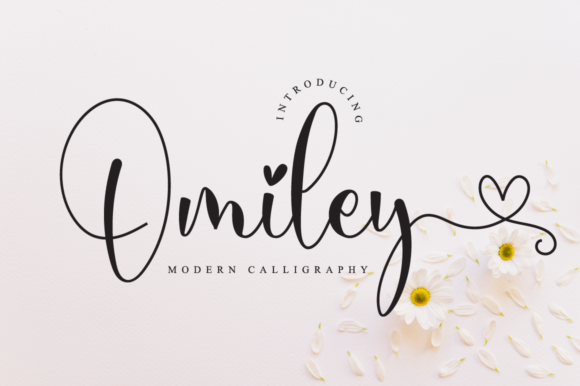
Feast your eyes on Omiley Font, a breathtaking script font that will cast a spell on your wedding programs and leave your guests in awe. Created by the talented NissaStudio, this font is a symphony of elegance and fluidity, capturing the essence of romance and timeless beauty.
Unleash your creativity and watch as Omiley transforms your words into a visual masterpiece. Its varying baseline, smooth lines, gorgeous glyphs, and stunning alternates create a dynamic and captivating look that will make your wedding program stand out from the rest.
With Omiley, you can effortlessly evoke a sense of sophistication and charm in your designs. Its classy calligraphic influences blend seamlessly with a contemporary and fresh feel, ensuring that your wedding program reflects your unique style and personality.
Indulge in the splendor of Omiley and allow it to transform your wedding program into a cherished keepsake that you and your loved ones will treasure forever. Its timeless appeal and captivating charm will ensure that your special day is remembered for years to come.